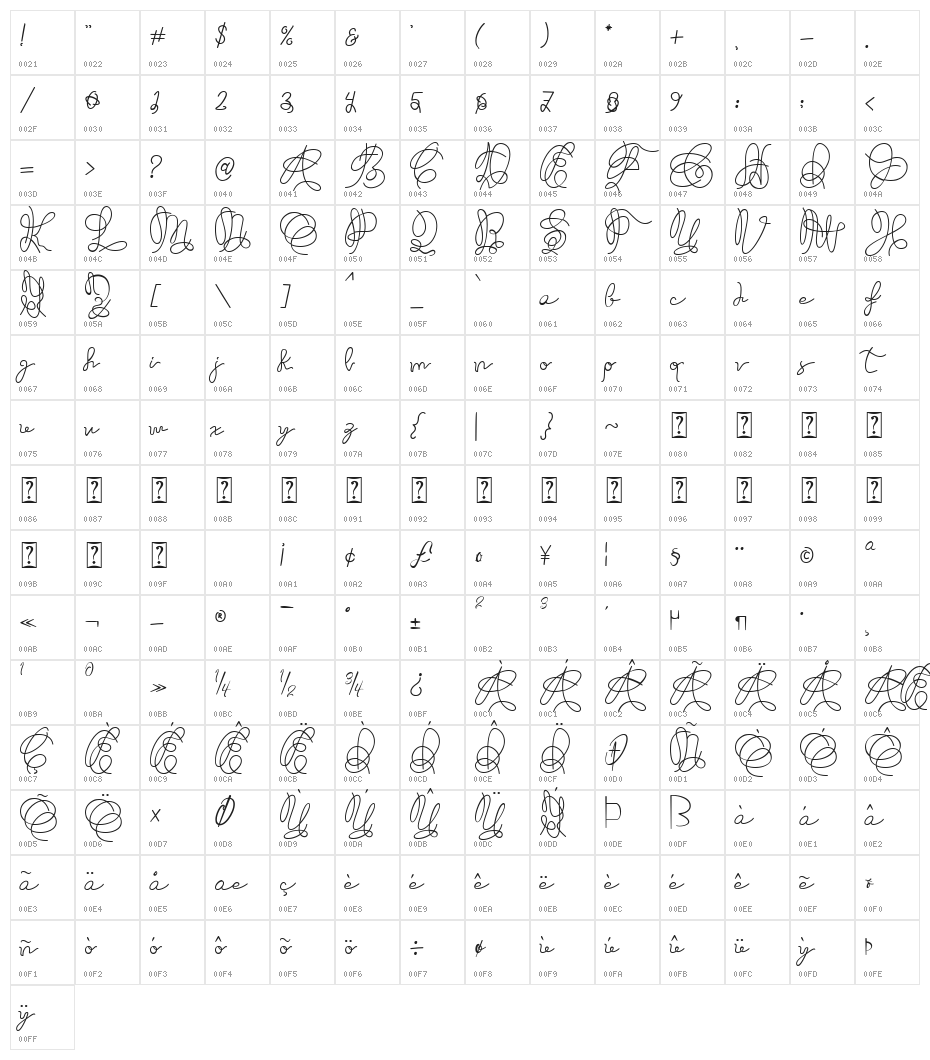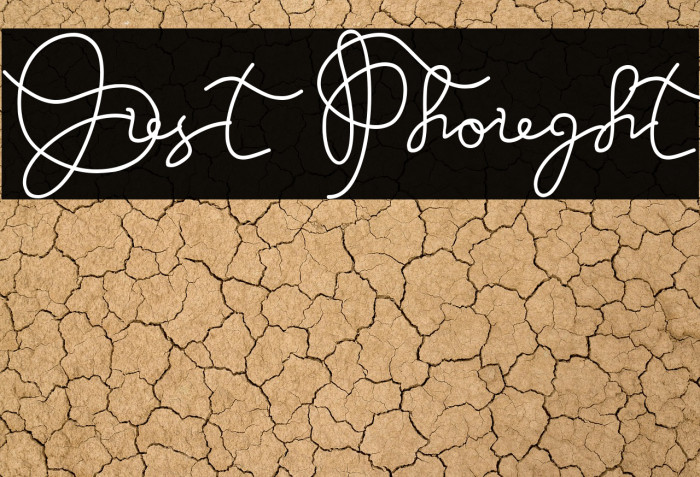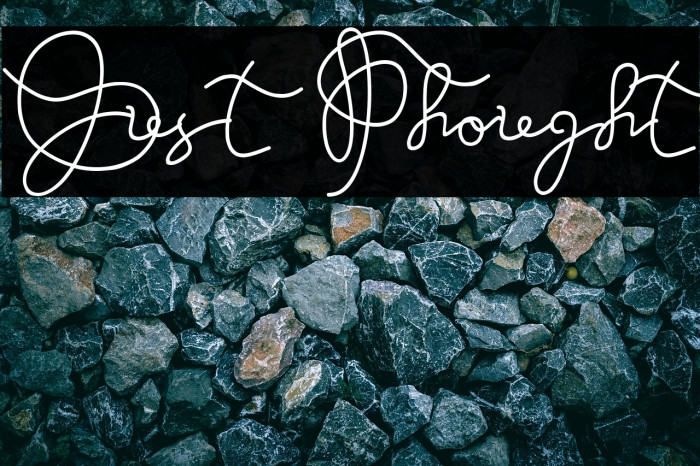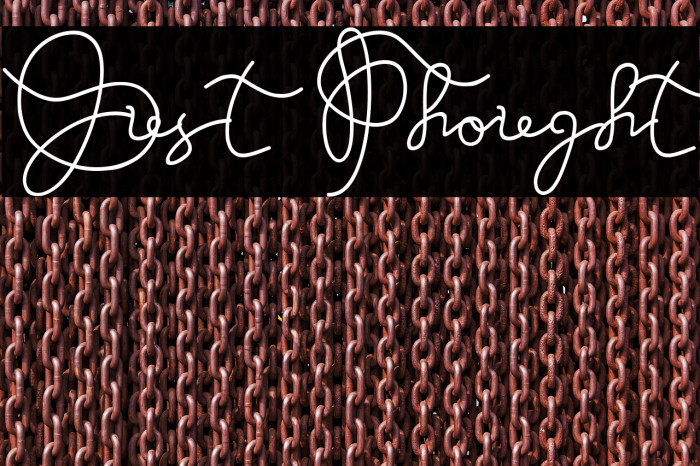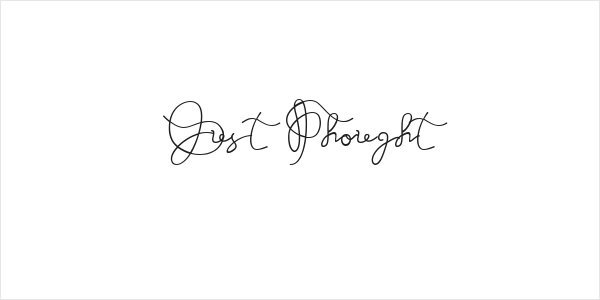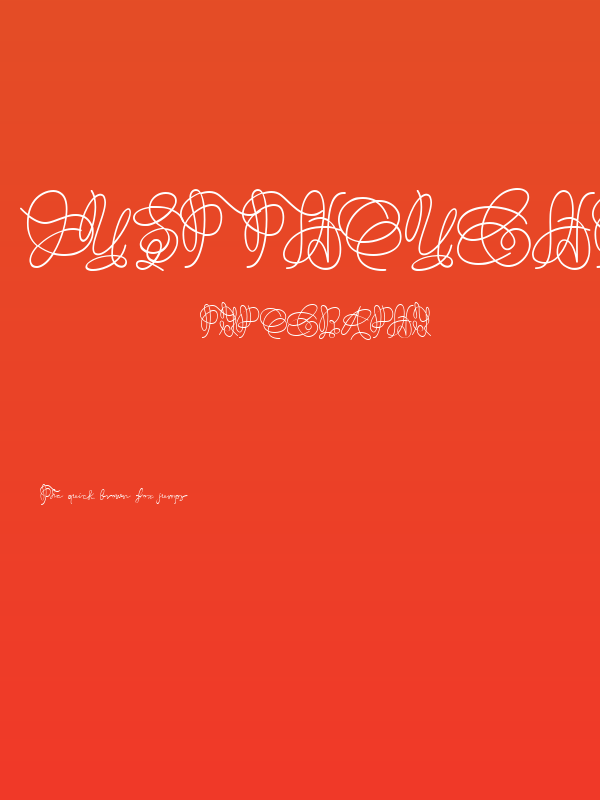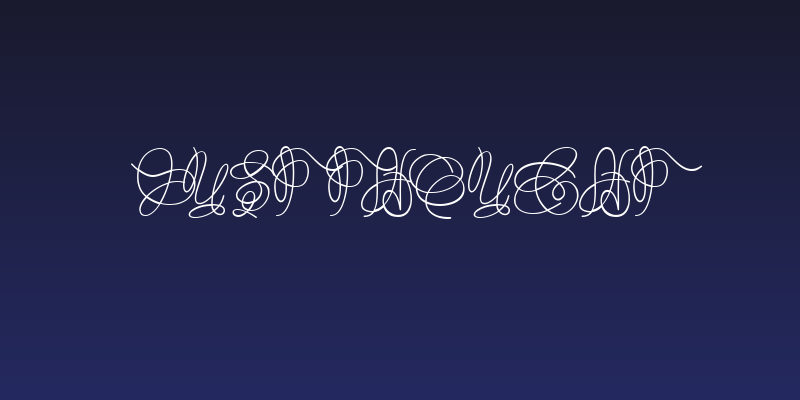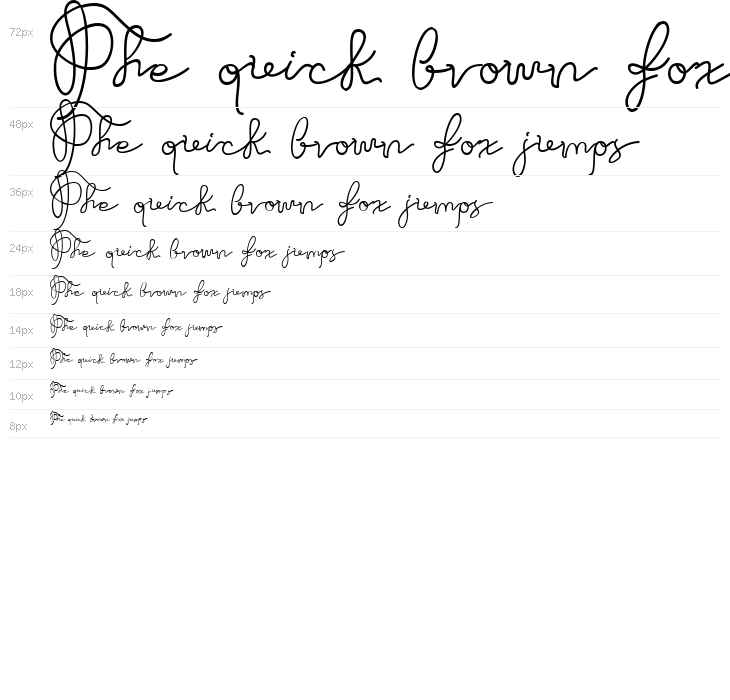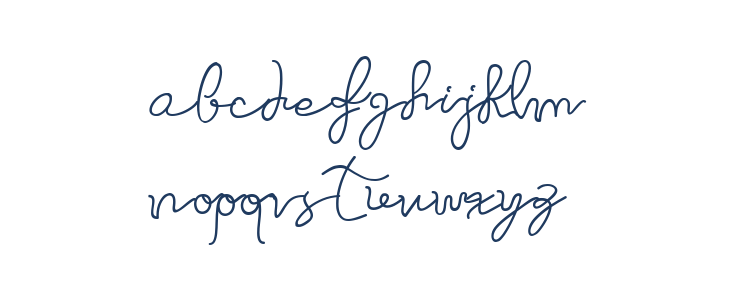
Just Thought Font
Just Thought Description
This font features an intricate and artistic script style, characterized by its flowing, interconnected letters that mimic the fluidity of handwriting. The uppercase letters are highly decorative, with elaborate loops and swirls that give a sense of elegance and sophistication. The lowercase letters maintain a more consistent flow, with smooth curves and a slightly more restrained design compared to the uppercase. The numerals and special characters continue the theme of fluidity, integrating seamlessly with the overall style. This font's unique design makes it stand out, offering a blend of creativity and elegance.
| Use Case | Logos, Invitations, Artistic Projects |
| Proposed Projects | Ideal for wedding invitations, elegant branding, artistic posters, and personal stationery. |